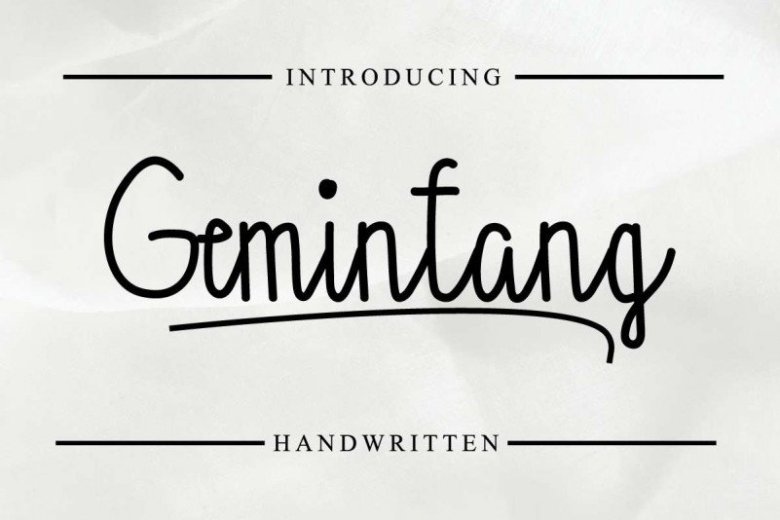
Gemintang Script Font
Please meet Gemintang Script Font. This is a latest script font with natural handwriting look style made with love from our team in Bandung-Indonesia.